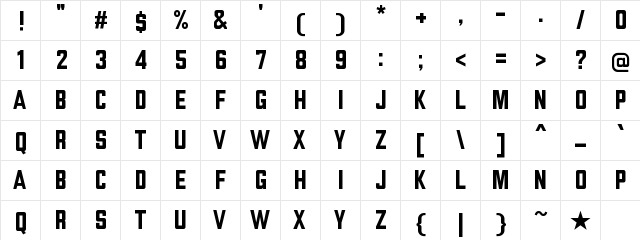
Topline regular
| Designer | Matt LaGrandeur |
Design Context for Topline Typeface
Topline offers clean, dependable letterforms without strong stylistic allegiance, making it a practical choice for designers who need flexibility.